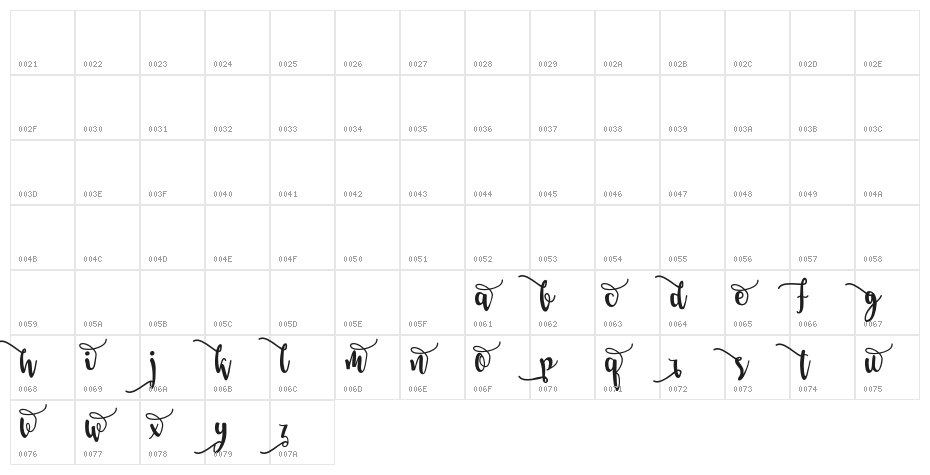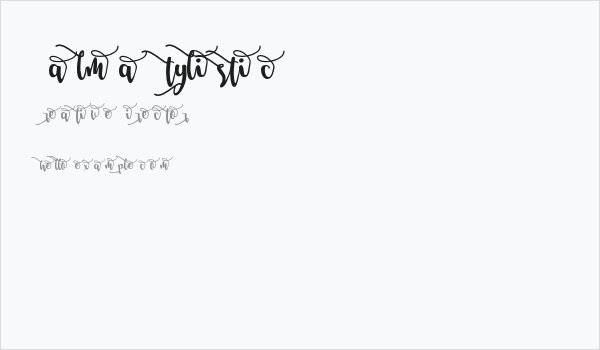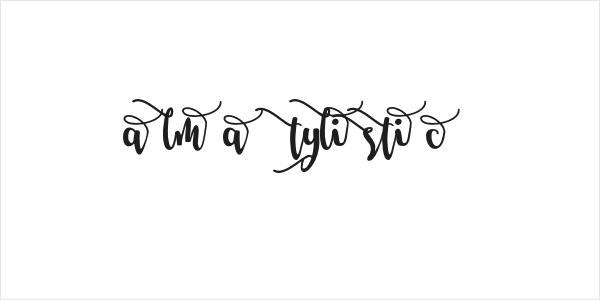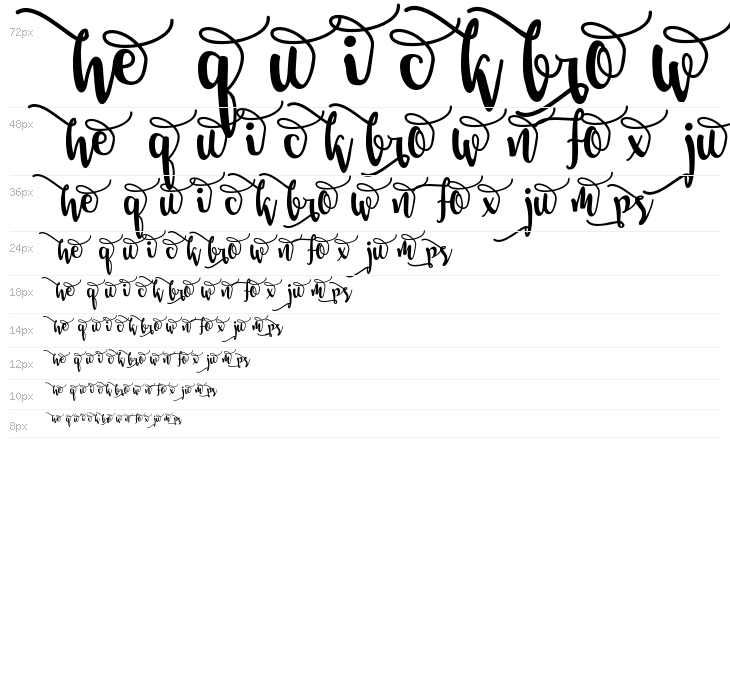
Salma Stylistic 2 Font
Salma Stylistic 2 Description
This font features an elegant and flowing script style, characterized by its intricate swashes and loops that give it a highly decorative appearance. The letters are interconnected with smooth, sweeping curves, creating a sense of fluidity and motion. The overall design is both sophisticated and playful, making it ideal for projects that require a touch of elegance and creativity. The font's unique style is perfect for invitations, greeting cards, and branding that seeks to convey a sense of luxury and artistry.
Use CaseLogos, Invitations, Greeting Cards
Proposed ProjectsIdeal for wedding invitations, greeting cards, luxury branding, and artistic projects.